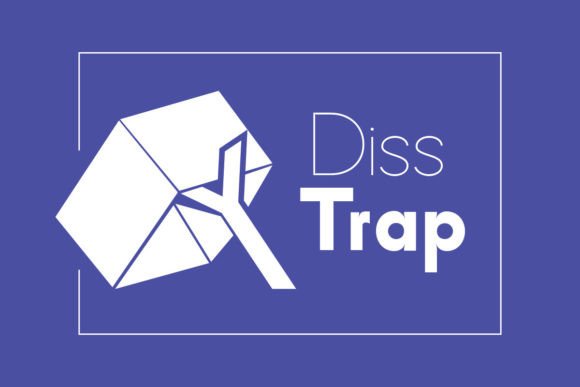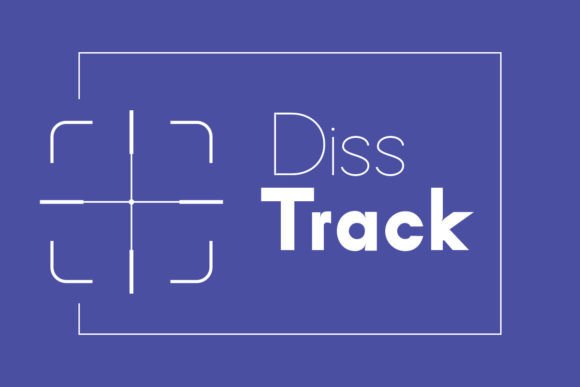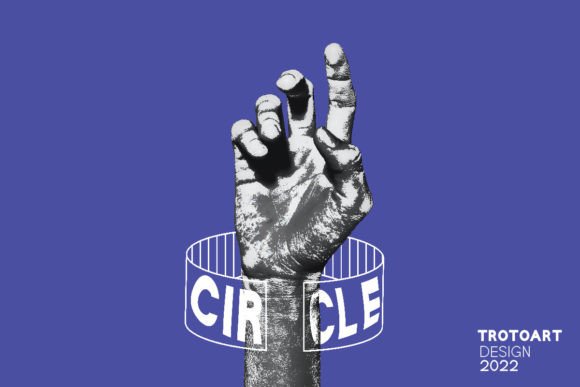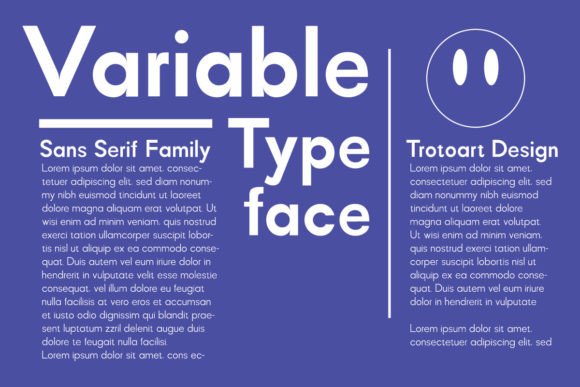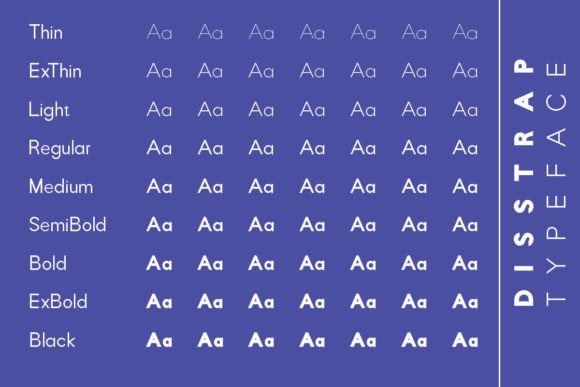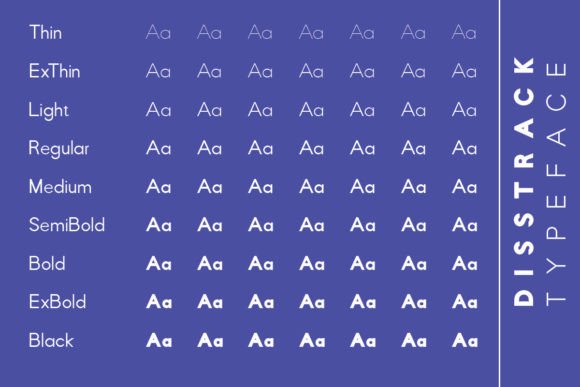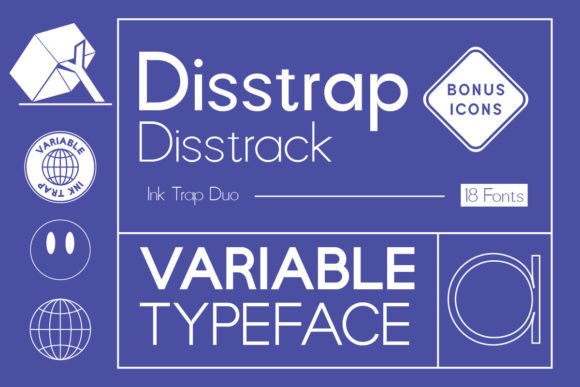
Introducing DissTrap and DissTrack: The Modern Sans Serif Grotesk Font Duo
In the world of typography, fonts play a crucial role in conveying the tone and aesthetic of a design. For designers and crafters looking to add a touch of sophistication to their minimalist geometric type-centered designs, the DissTrap and DissTrack font duo is an excellent choice. Inspired by brutalist architecture, this modern sans serif Grotesk font duo with pronounced variable ink traps is sure to elevate your designs to the next level.
What is a Grotesk Font?
Grotesk fonts are a type of sans serif font that originated in the 19th century. Characterized by their clean and minimalist lines, Grotesk fonts are known for their neutral and objective tone. They are often used in designs where a straightforward and uncomplicated message needs to be conveyed. The DissTrap and DissTrack font duo takes the classic Grotesk font and adds a modern twist with its variable ink traps, making it a unique and versatile choice for designers.
The Inspiration Behind DissTrap and DissTrack
The DissTrap and DissTrack font duo draws inspiration from brutalist architecture, a style characterized by its use of raw concrete, steel, and glass. Brutalist buildings are known for their rugged and imposing presence, yet they also possess a certain elegance and sophistication. The fonts capture the essence of brutalist architecture by incorporating elements of geometric simplicity and clean lines, making them perfect for designs that require a touch of sophistication.
Key Features of DissTrap and DissTrack
- Modern Sans Serif Grotesk Font: The DissTrap and DissTrack font duo is a modern take on the classic Grotesk font, with clean lines and a neutral tone.
- Variable Ink Traps: The fonts feature pronounced variable ink traps, which add a touch of elegance and sophistication to the design.
- Geometric Simplicity: The fonts are inspired by brutalist architecture and incorporate elements of geometric simplicity, making them perfect for minimalist designs.
- Versatile: The DissTrap and DissTrack font duo is versatile and can be used in a variety of designs, from typography-centered designs to logos and branding.
Use Cases for DissTrap and DissTrack
The DissTrap and DissTrack font duo is perfect for designers and crafters looking to add a touch of sophistication to their designs. Here are some use cases where these fonts can be used:
- Typography-Centered Designs: The fonts are perfect for designs that focus on typography, such as posters, flyers, and brochures.
- Logos and Branding: The fonts can be used to create logos and branding materials that require a modern and sophisticated look.
- Minimalist Designs: The fonts are perfect for minimalist designs that require a clean and simple aesthetic.
- Geometric Designs: The fonts can be used in geometric designs that require a touch of elegance and sophistication.
Tips for Using DissTrap and DissTrack
Here are some tips for using the DissTrap and DissTrack font duo:
- Experiment with Font Sizes: The fonts can be used at a variety of font sizes, from large headings to small body text.
- Play with Line Spacing: The fonts can be used with different line spacing to create a unique and interesting effect.
- Use in Combination with Other Fonts: The fonts can be used in combination with other fonts to create a unique and visually appealing design.
The DissTrap and DissTrack font duo is a modern sans serif Grotesk font duo with pronounced variable ink traps. Inspired by brutalist architecture, these fonts are perfect for adding a touch of sophistication to minimalist geometric type-centered designs. With their clean lines, neutral tone, and versatile nature, the DissTrap and DissTrack font duo is an excellent choice for designers and crafters looking to elevate their designs to the next level.